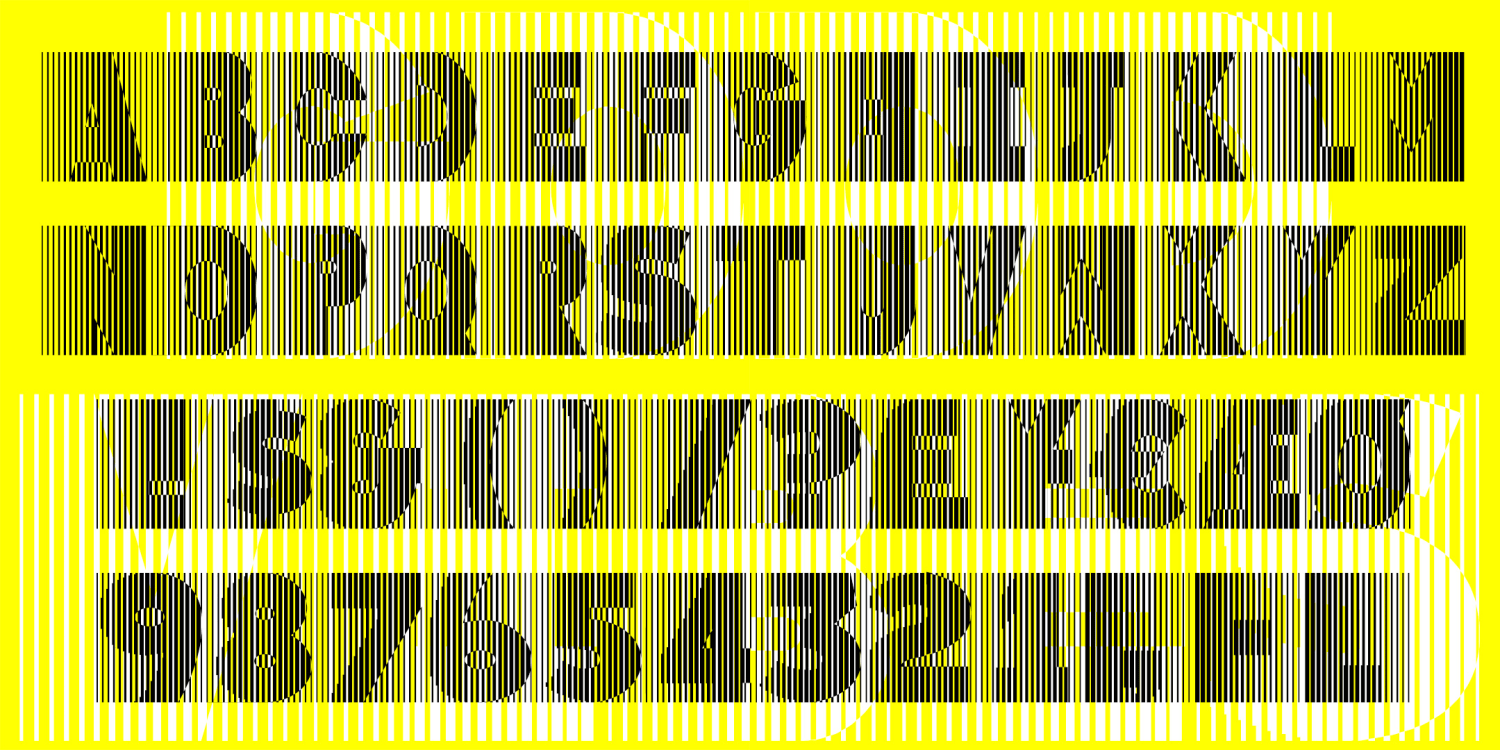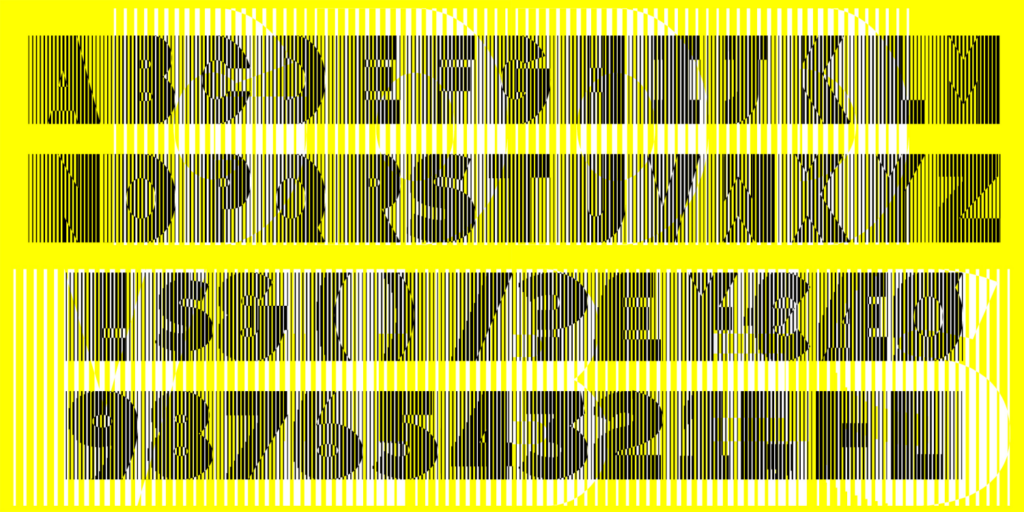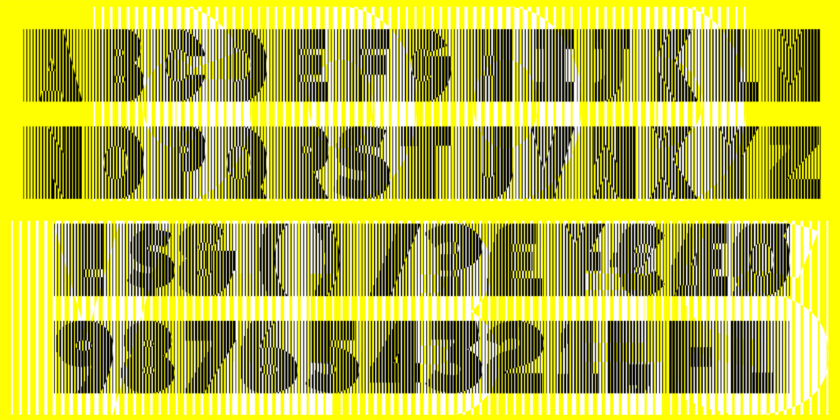
HomeFont BrosGroovy (1966-1978)Good Vibes Groovy (1966-1978)Special Effect Good Vibes FacebookTwitterPinterestWhatsApp 1 of 1 About Good Vibes GOOD VIBES is a great example of Op Art, It was inspired by a “lost” analog font from 1973 designed by Trevor Hatchett  DOWNLOAD NOW People also explored Super Bubble Font Dargelania Font Brownsugar Font Yestarday Montera Font Bull Grunge Font Proper Lady Font Mostwest Script Font Compast Font Lily Font 186 0 TagsGood Vibes FontK38W6MG7T5 Previous articlePharmacyNext articleGaffeur Rounded LEAVE A REPLY Cancel reply Comment: Please enter your comment! Name:* Please enter your name here Email:* You have entered an incorrect email address! Please enter your email address here Website: Save my name, email, and website in this browser for the next time I comment. Personal Use Free Bitcrusher Condensed Bold Personal Use Free Read more about this font Rollayka Personal Use Free Read more about this font Lumber Personal Use Free Read more about this font Equestrain Personal Use Free Read more about this font BLOG Free Fonts Risk: Why Free Fonts Can Be Dangerous for Designers Free Fonts Risk: Why Free Fonts Can Be Dangerous for Designers Using free fonts is a common practice in web and graphic design. However, the... Top 7 Google Fonts Alternatives for Faster and Privacy-Friendly Web Design (2025) Best Fonts for T-Shirt Design – Top 2025 Picks Transform Your Website: Elevate Your Typography with 7 Best Web Font Generators